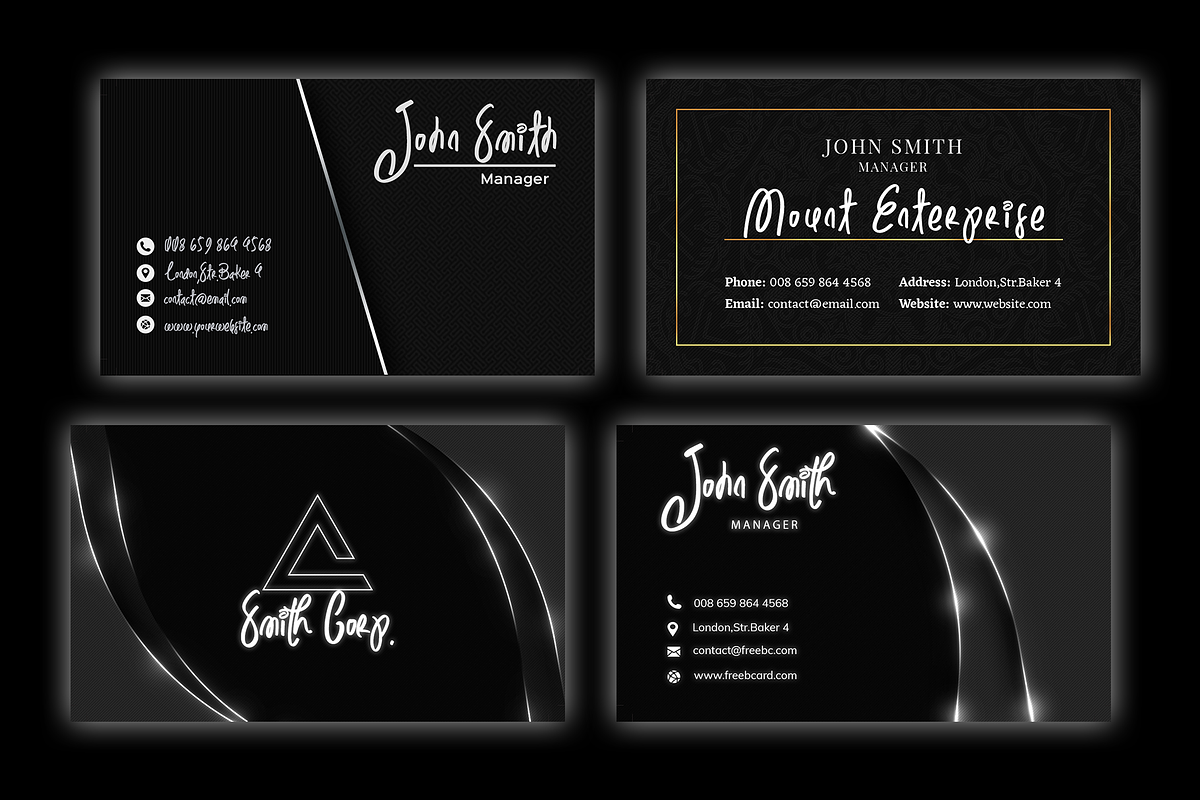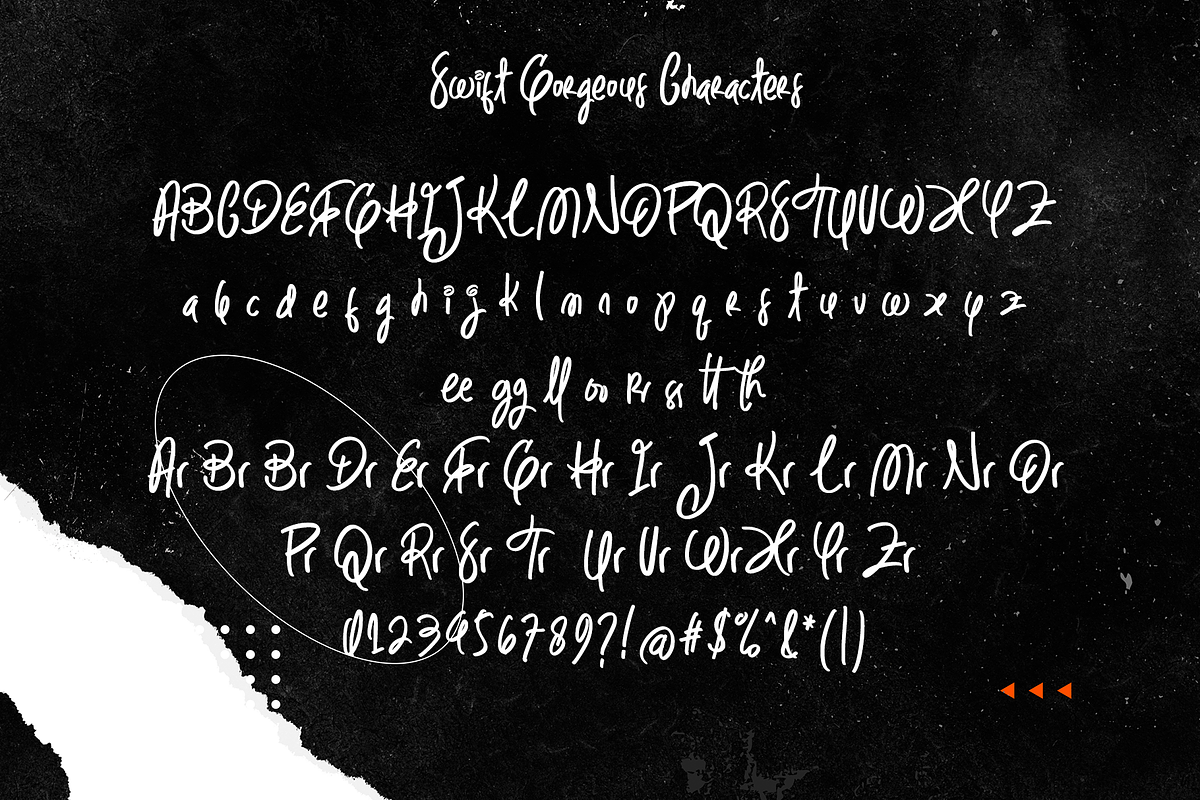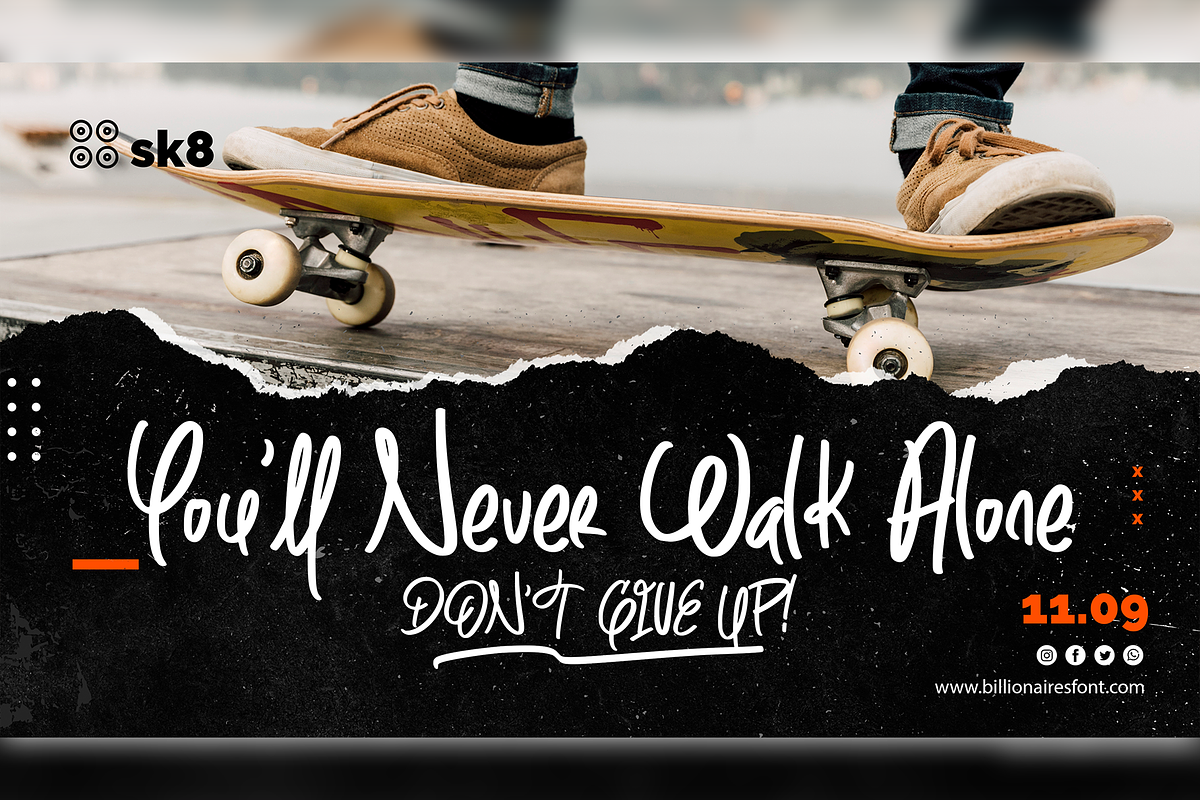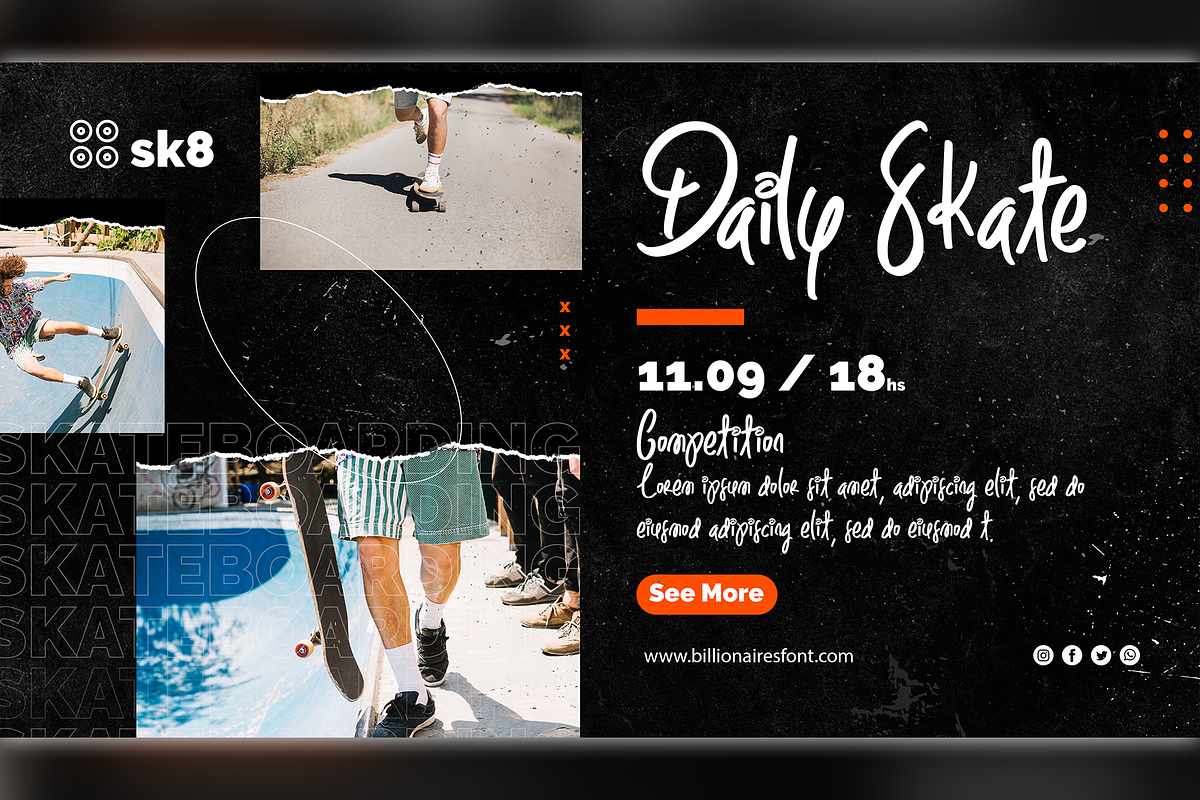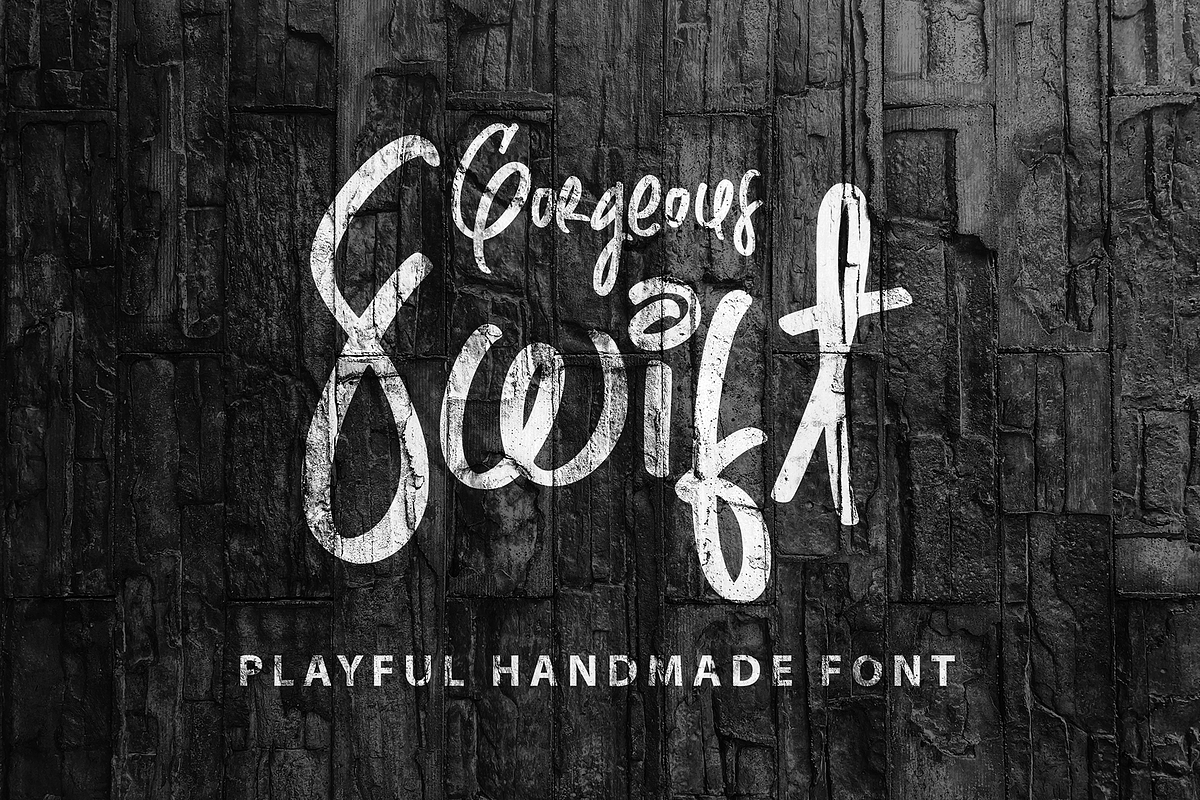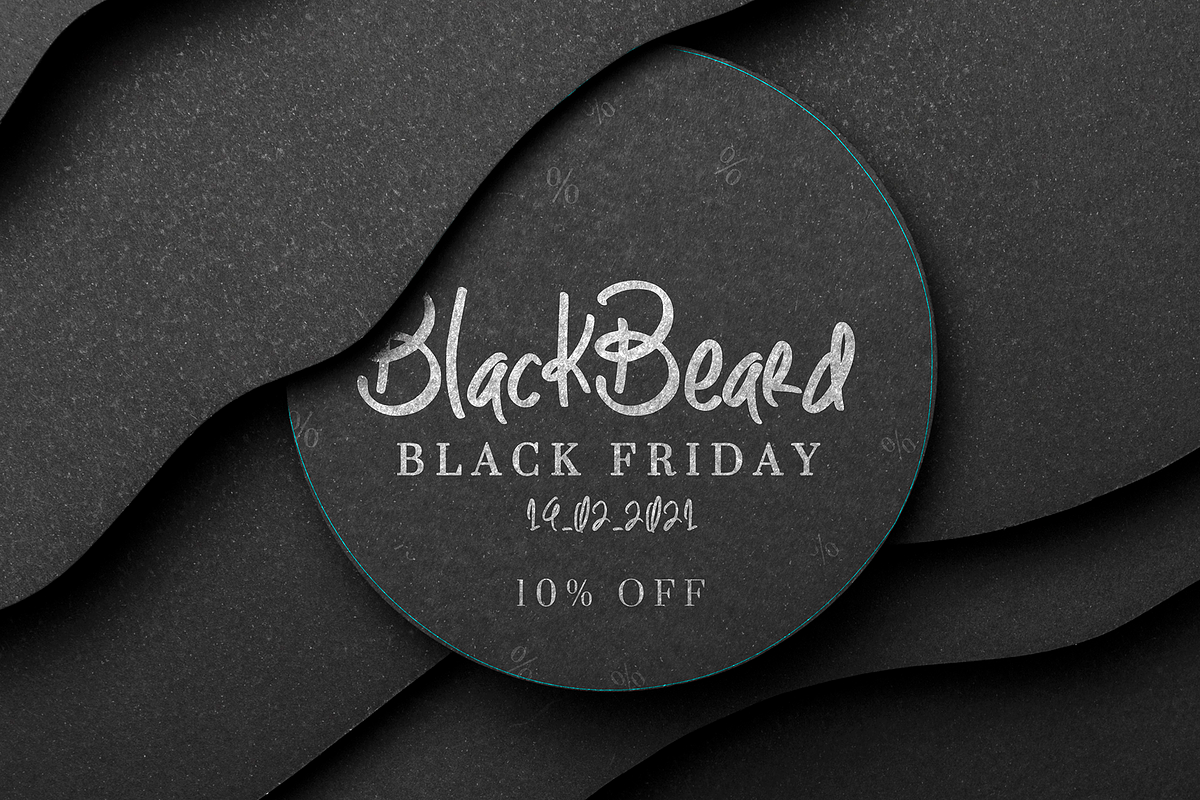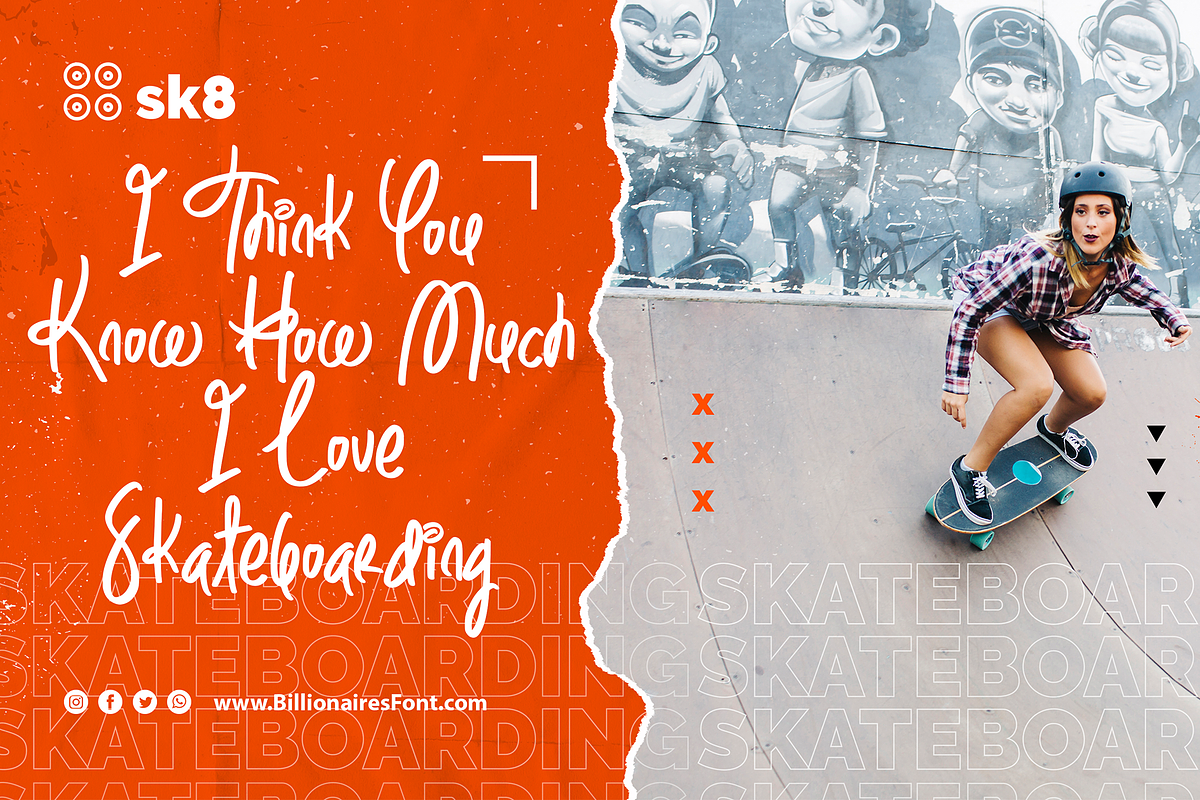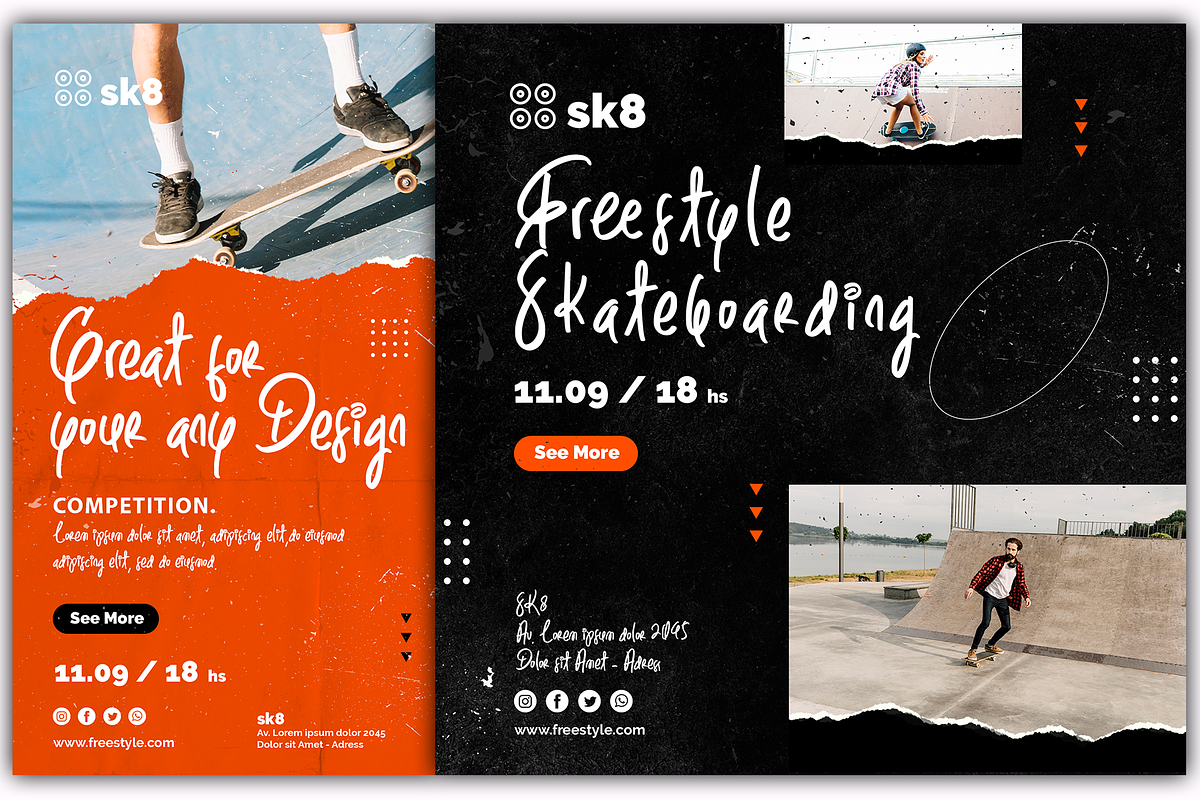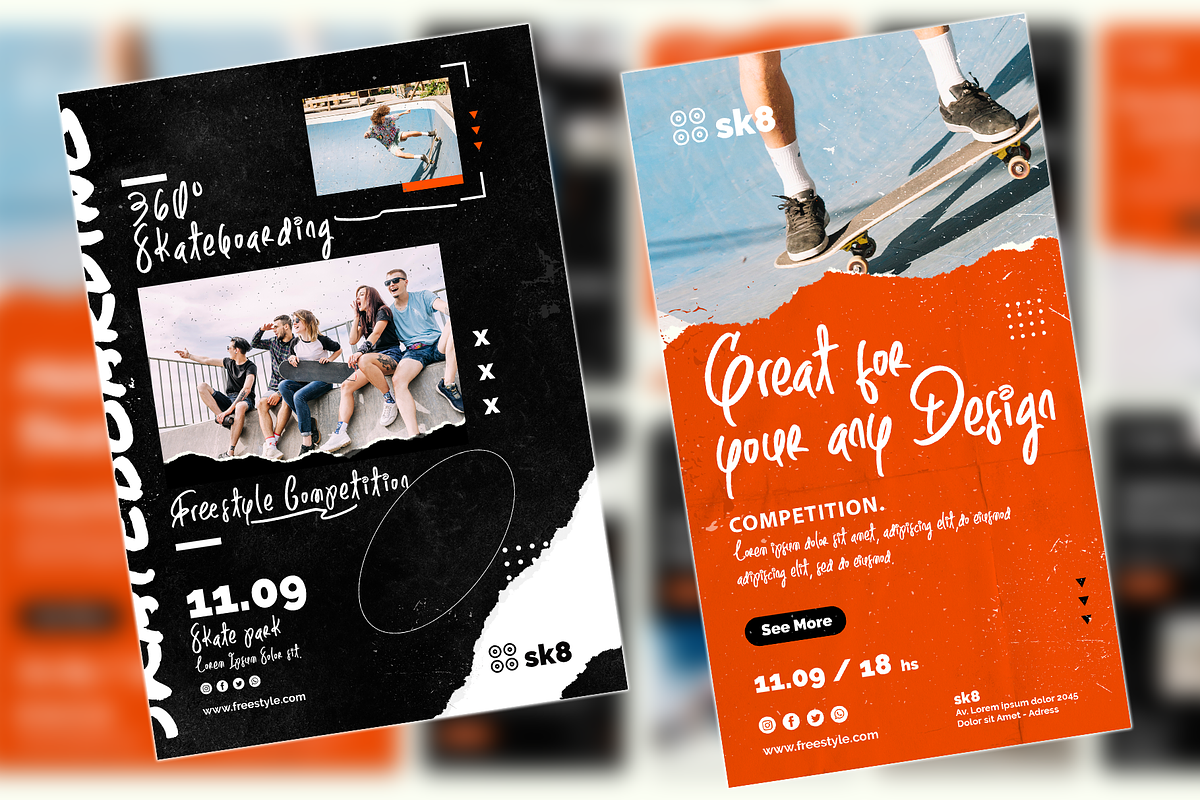
Swift Gorgeous
Swift Gorgeous is a trendy and bold brushed handwritten font. It is suitable for creating any branding, product packaging, invitation, quote, t-shirt, label, poster, logo that you wish to develop.